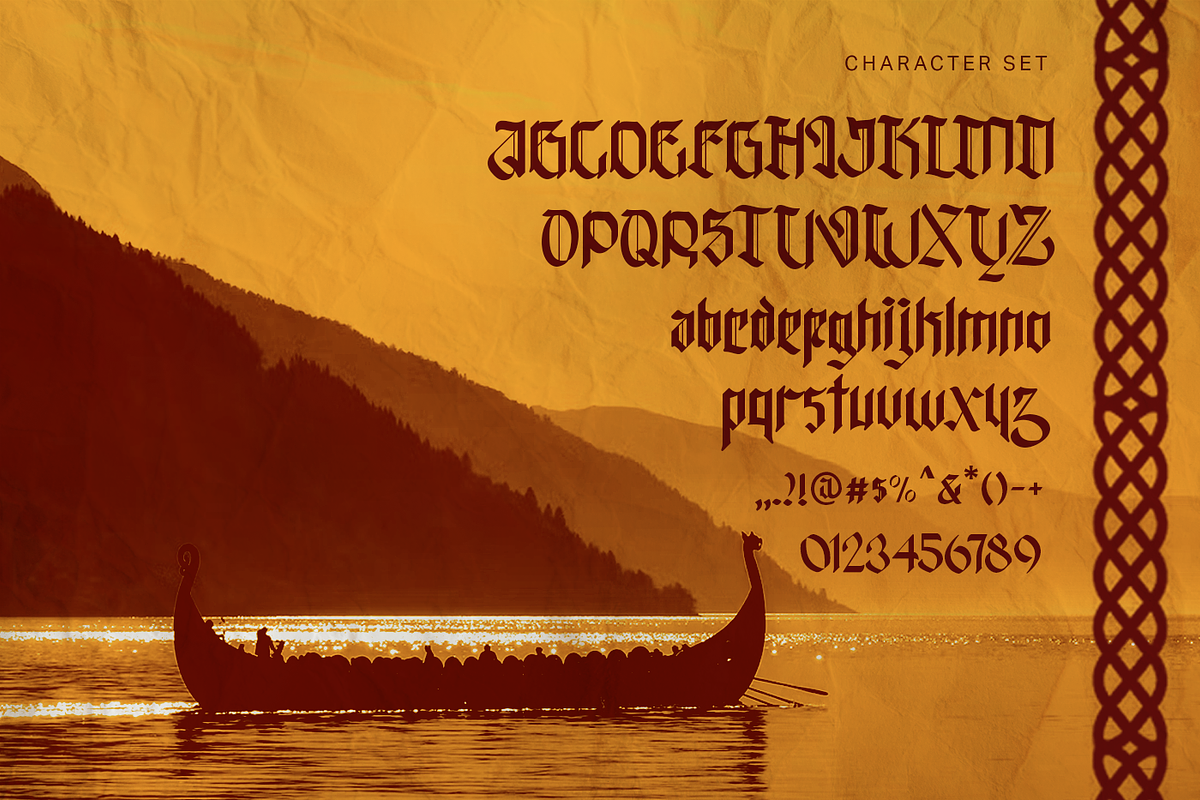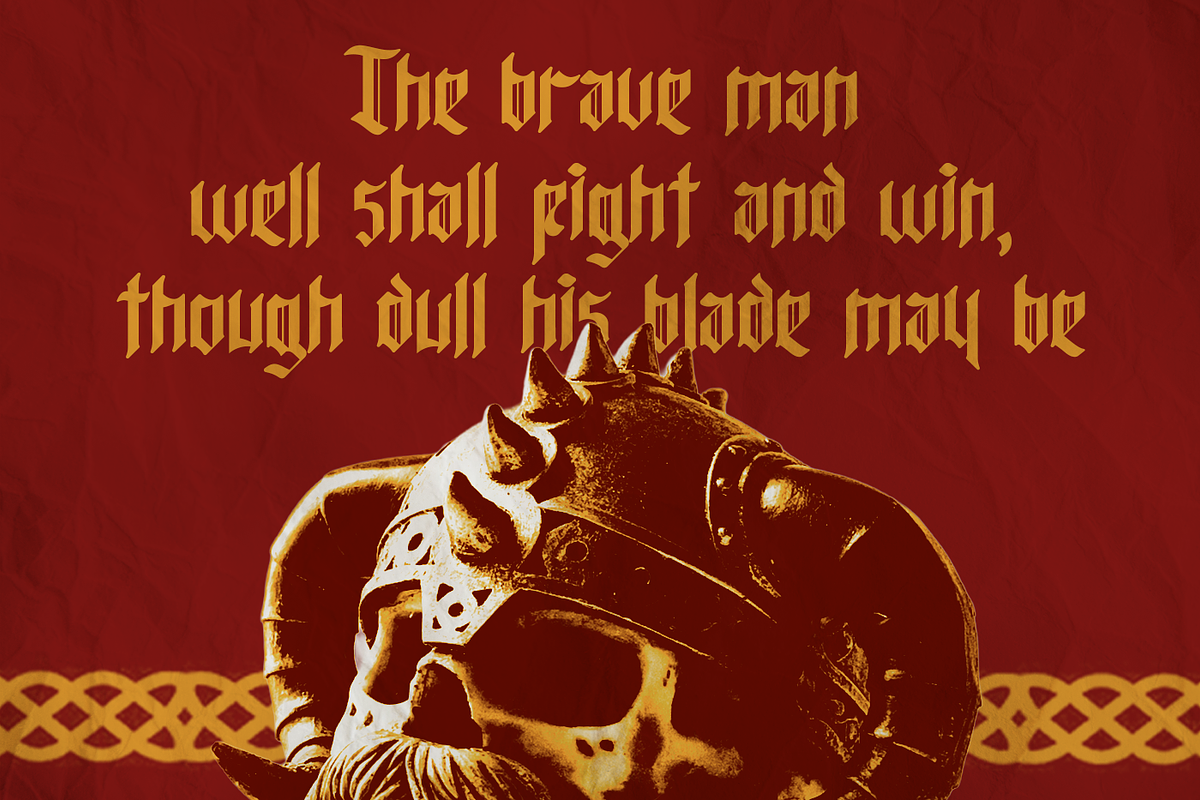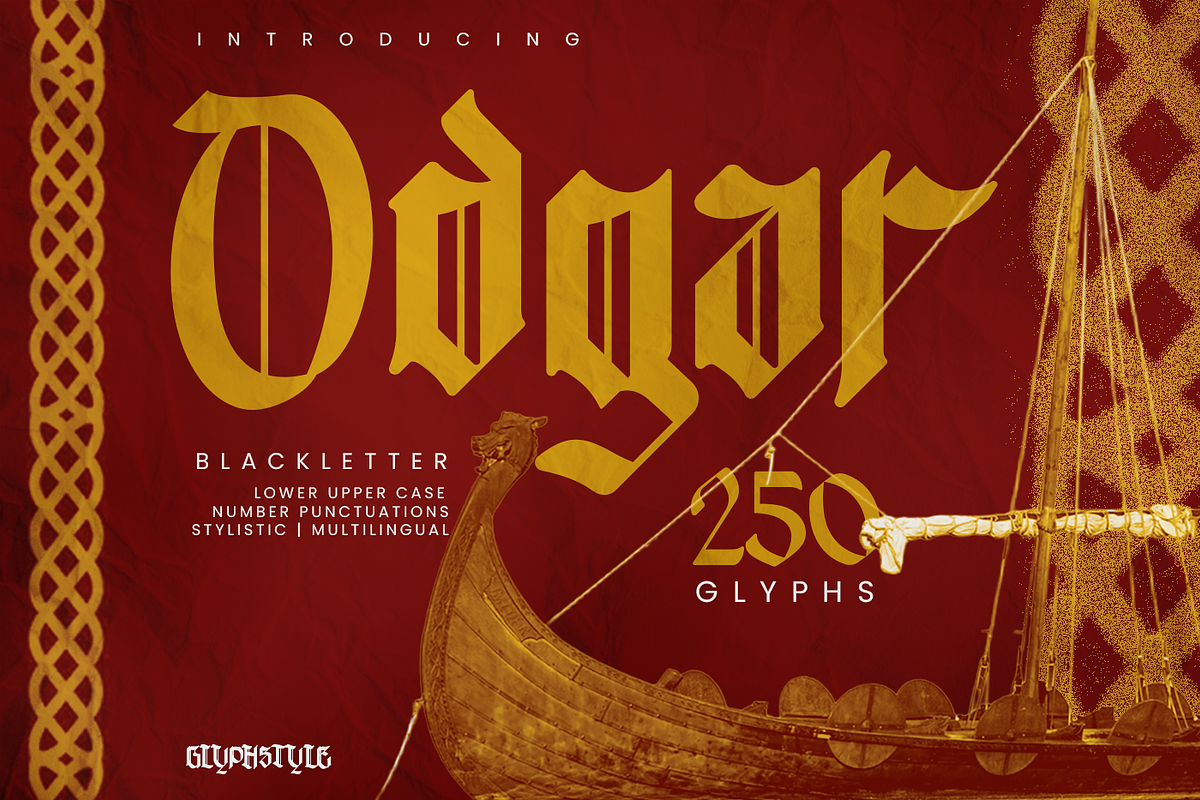
Odgar Blackletter
Odgar is Blackletter typeface is inspired by Viking heritage and Norse mythology, capturing the spirit of strength, honor, and ancient warfare. Built with bold strokes, sharp angles, and classic medieval proportions, this font delivers a powerful and heroic presence.
Odgar ideal for Viking-themed designs, fantasy projects, historical artwork, logos, posters, games, films, album covers, and epic branding, this typeface embodies the legacy of warriors and legends of the North
Uppercase, Lowercase, Numerals & Punctuations,, Multilanguage